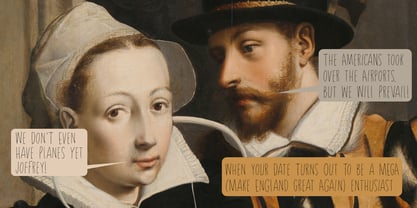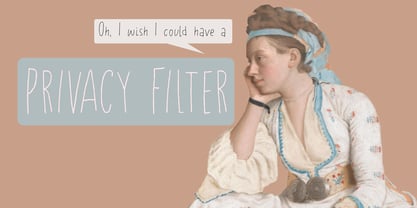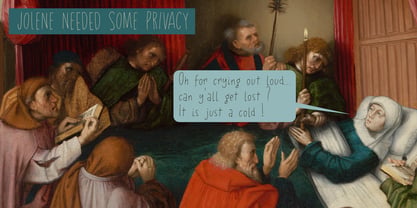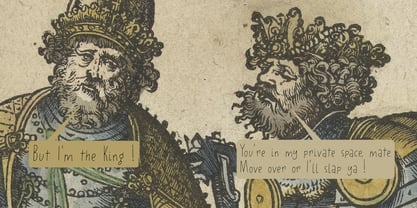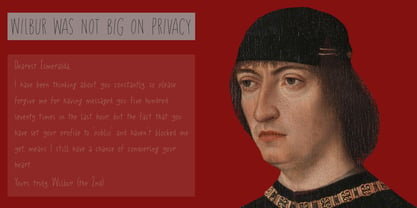
Privacy Filter
by Hanoded
The Privacy Filter Font Family was designed by David Kerkhoff and published by Hanoded. Privacy Filter contains 4 styles and family package options. More about this family
Privacy Filter is a font family designed with a human touch in mind. It was drawn by hand and blends thin, slightly rough strokes with a contemporary design. Privacy Filter is imperfect in a useful way, giving your designs character, warmth, and a sense of intention. The family comes in two distinct styles: a striking ALL CAPS version for confident statements, and a lowercase style for handwritten texts. Together, they give you the flexibility to shape tone and mood without losing consistency. Needless to say, Privacy Filter boasts a fantastic language support, so no matter where your company is based, you will be able to use it!
About Hanoded
Hanoded is run by Dutchman David Kerkhoff. His fonts are a mishmash of styles, as he just creates whatever pops into his head. You will find a lot of brush fonts in his collection, as his favourite tools are brushes and Chinese ink, with cartoon style fonts and script fonts complementing his repertoire. Aside from making fonts, David occasionally guides tours in far-flung places, renovates his '30's house and tries reasoning with his wife and (teenage) kids. Not an easy task!